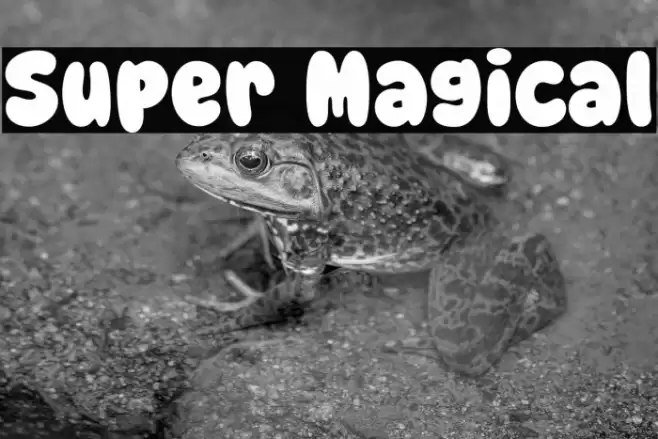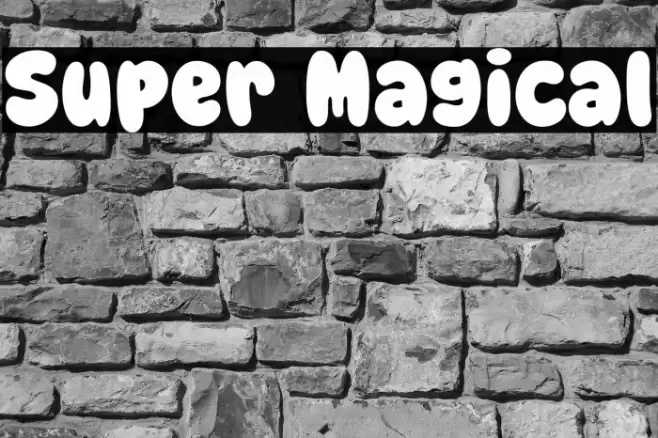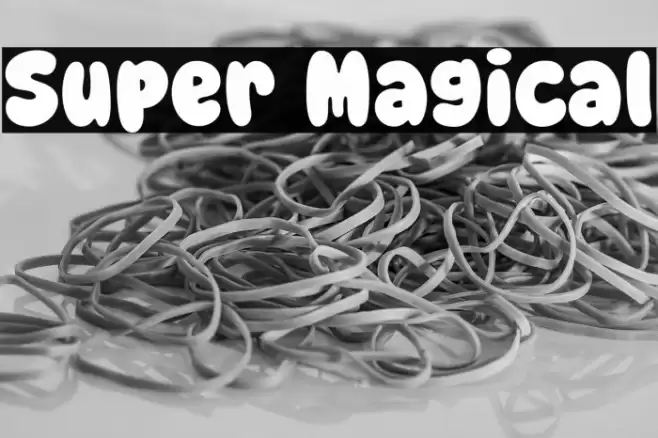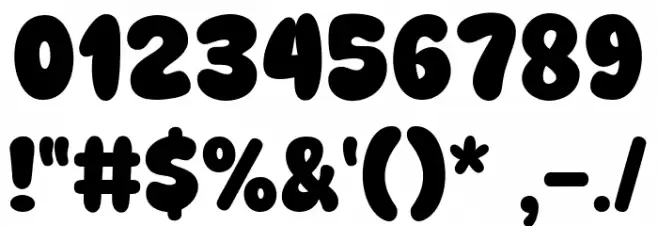
Super Magical Font
Super Magical Description
This playful and bold font features rounded, bubbly characters that exude a sense of fun and whimsy. The letters are thick and substantial, with a consistent stroke width that gives the font a cohesive and unified appearance. The rounded edges and soft curves create a friendly and approachable feel, making it ideal for designs that aim to convey warmth and playfulness. The numbers and special characters maintain the same playful style, ensuring a harmonious look across all text elements. This font is perfect for projects that require a touch of creativity and joy.
A playful, bold font with rounded, bubbly characters from Uncategorized fonts.
- Font: Super Magical
- Proposed Projects: Ideal for children's books, playful branding, party invitations, and creative posters.
- Overall Style: Playful